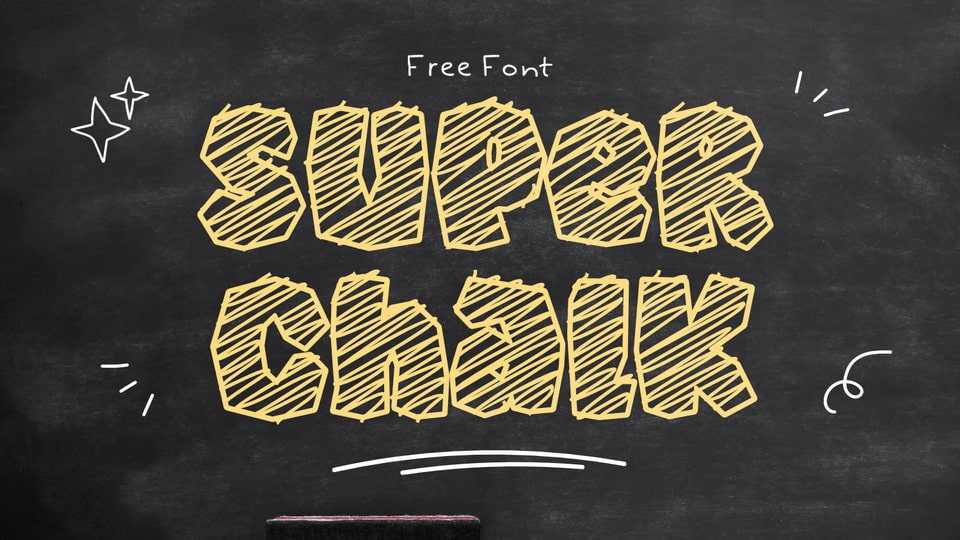
Download Super Chalk font, a bold and expressive hand-drawn typeface that mimics the playful charm of scribbled chalk on a blackboard. Super Chalk font is crafted with thick strokes, capturing the spontaneous energy of doodles created with chalk.